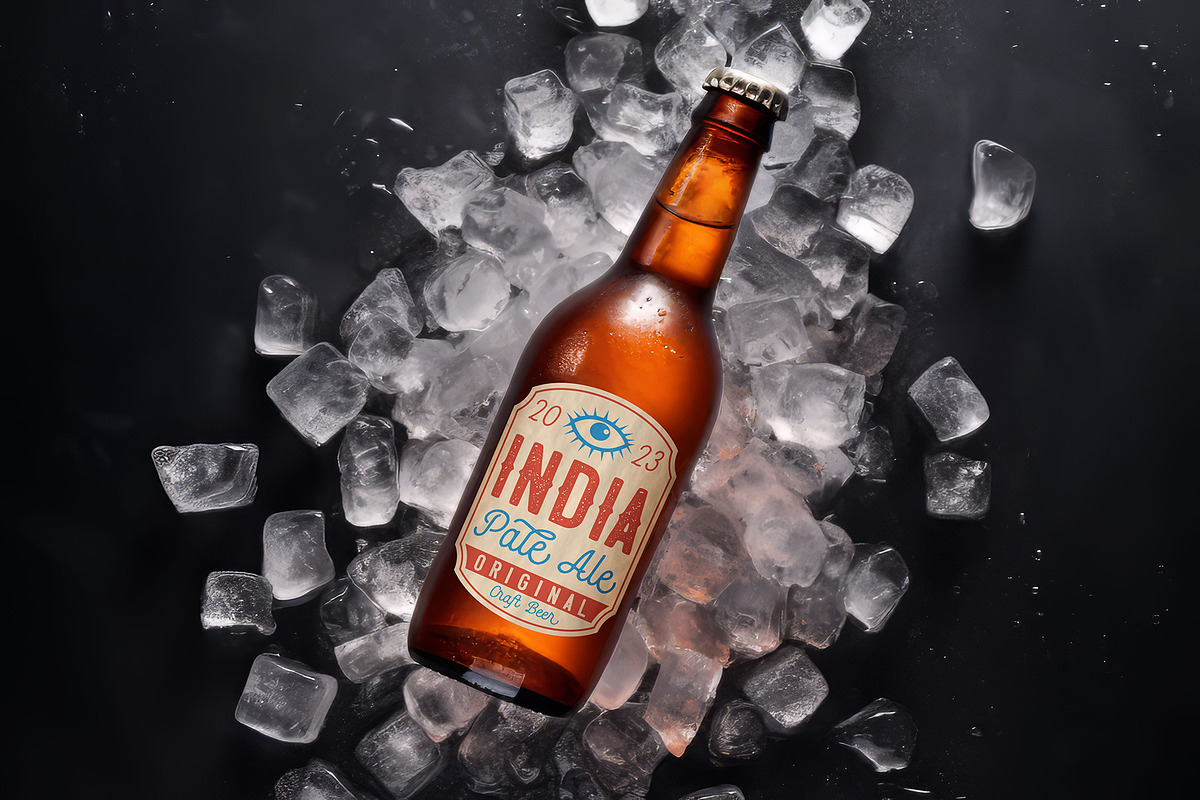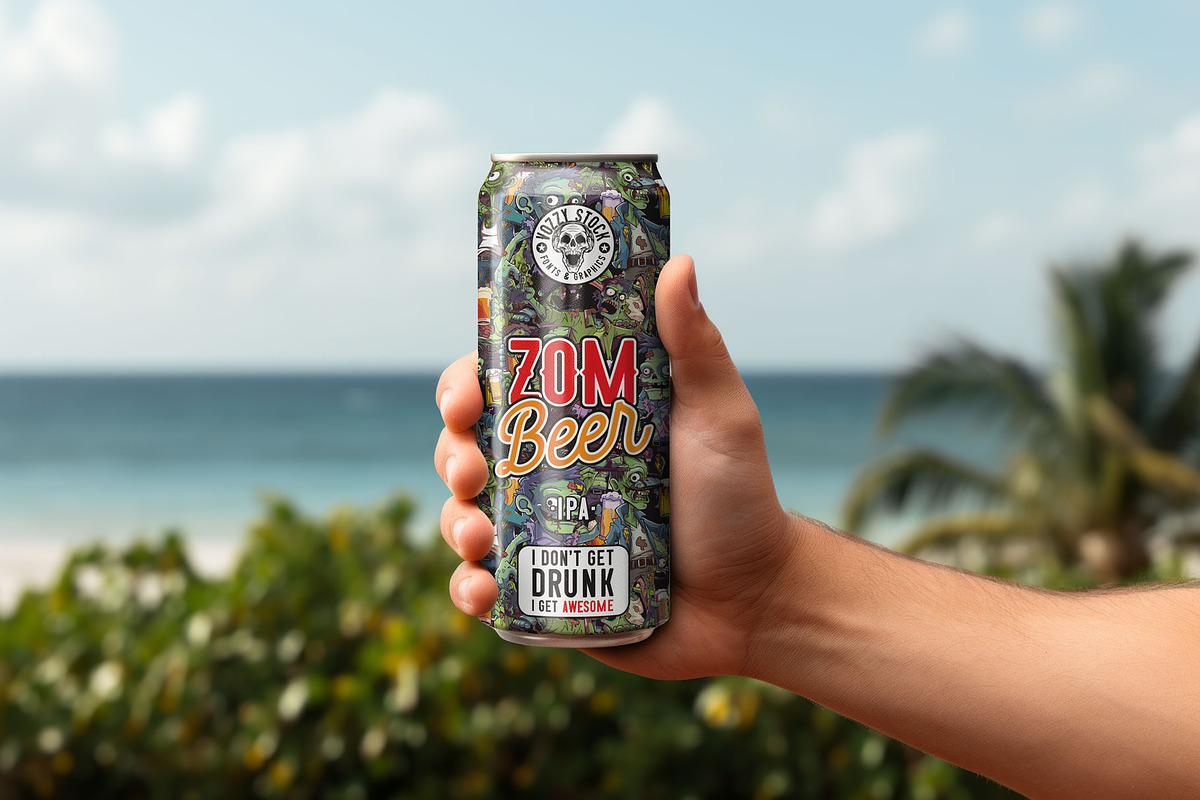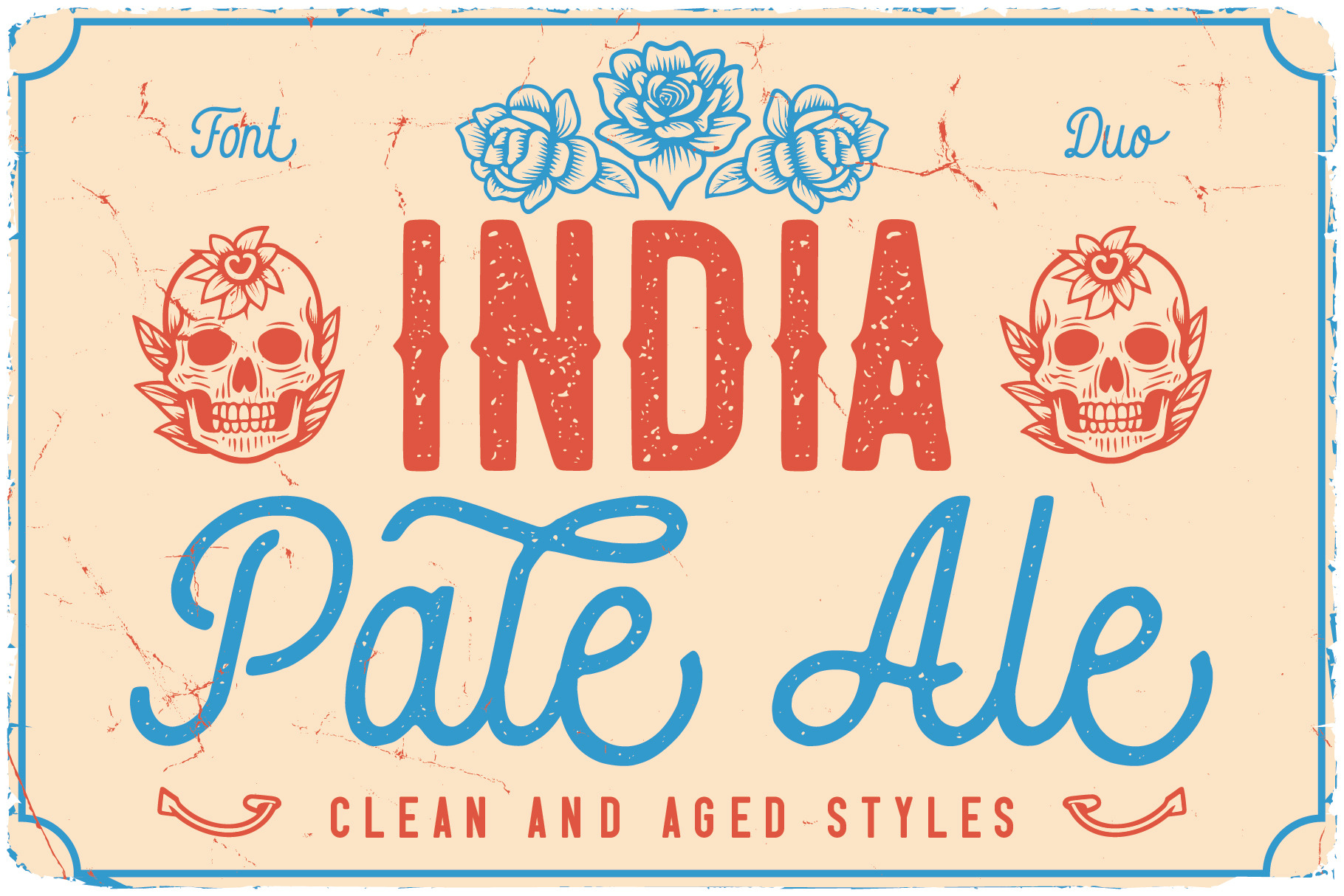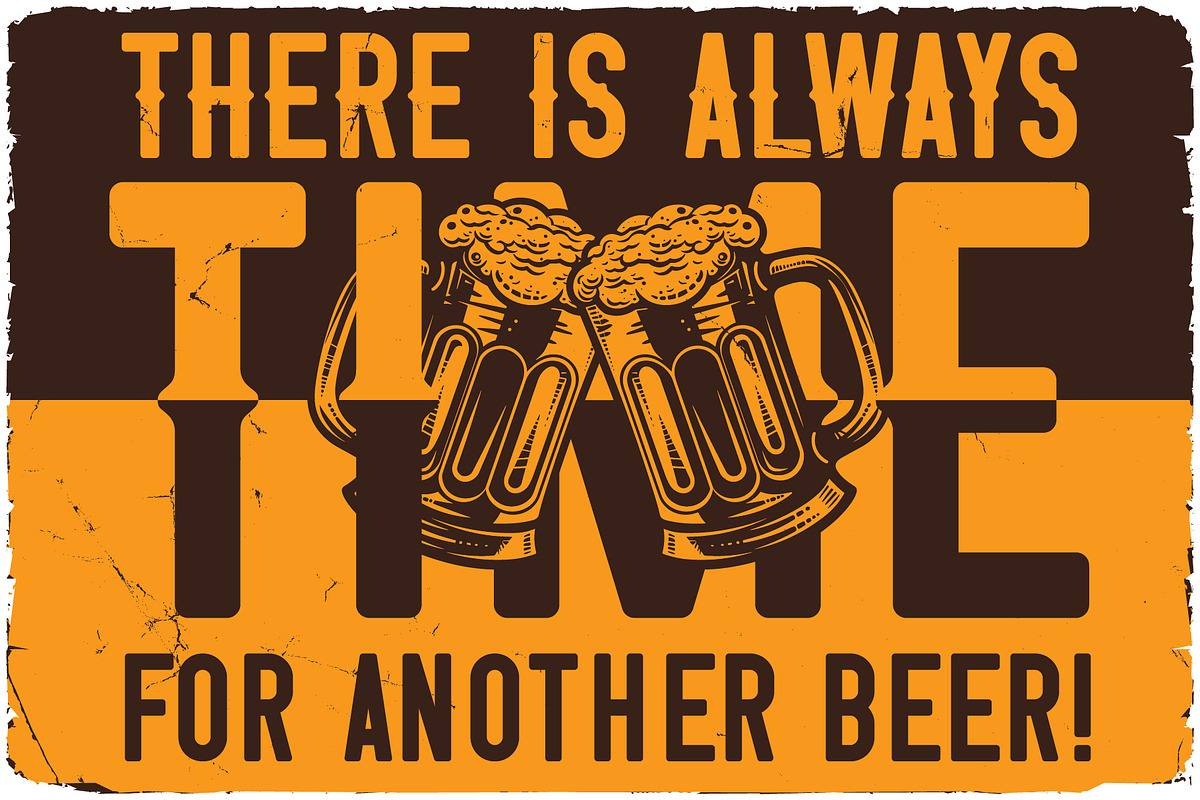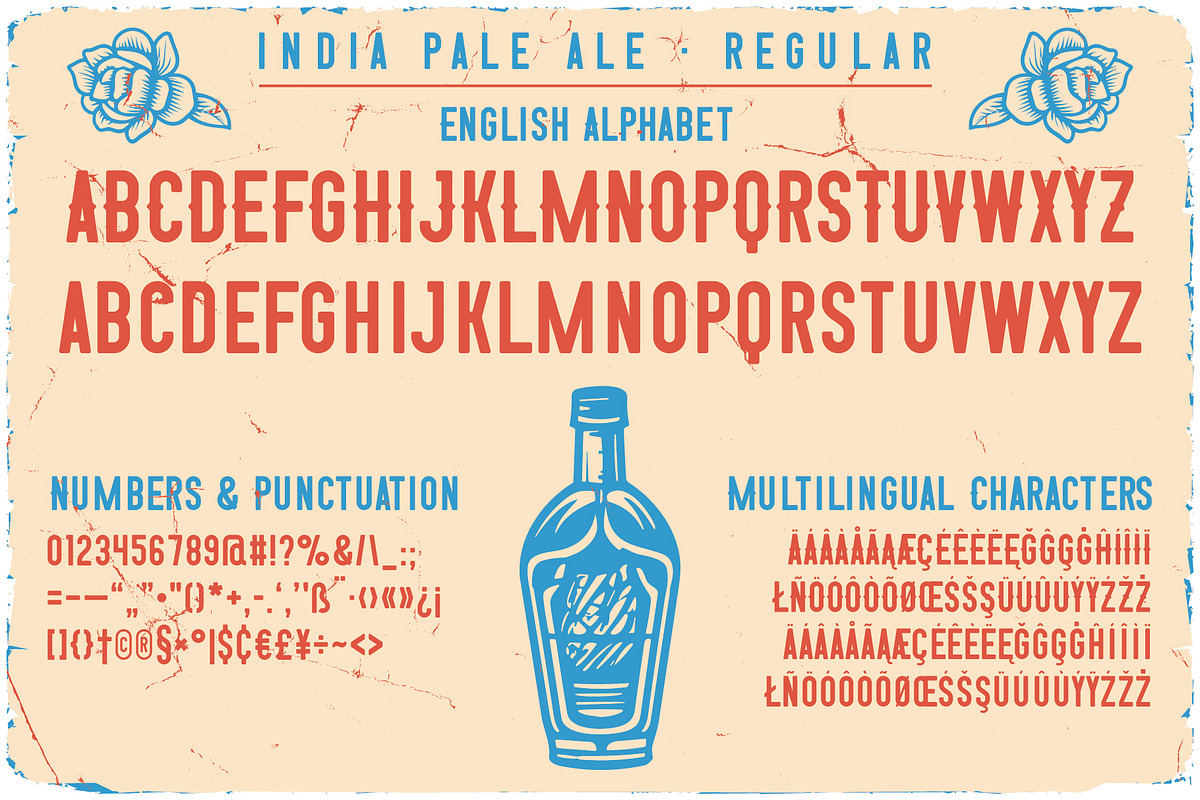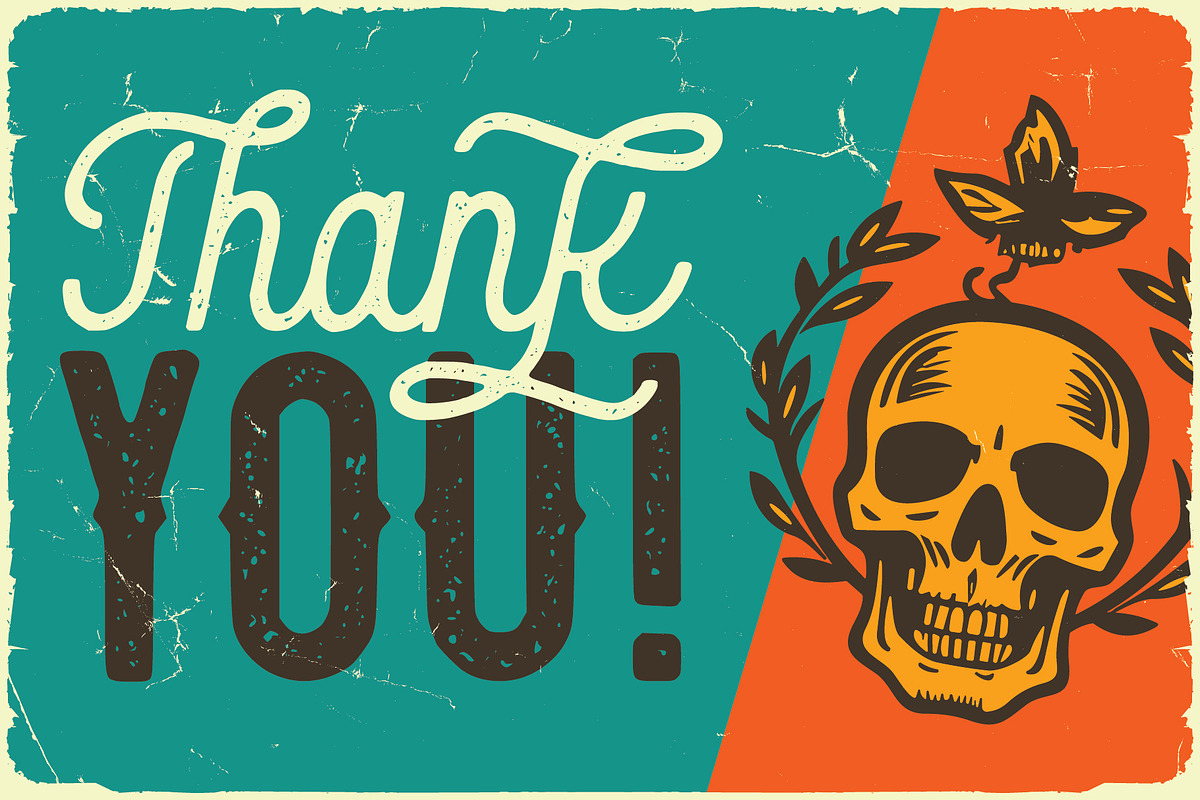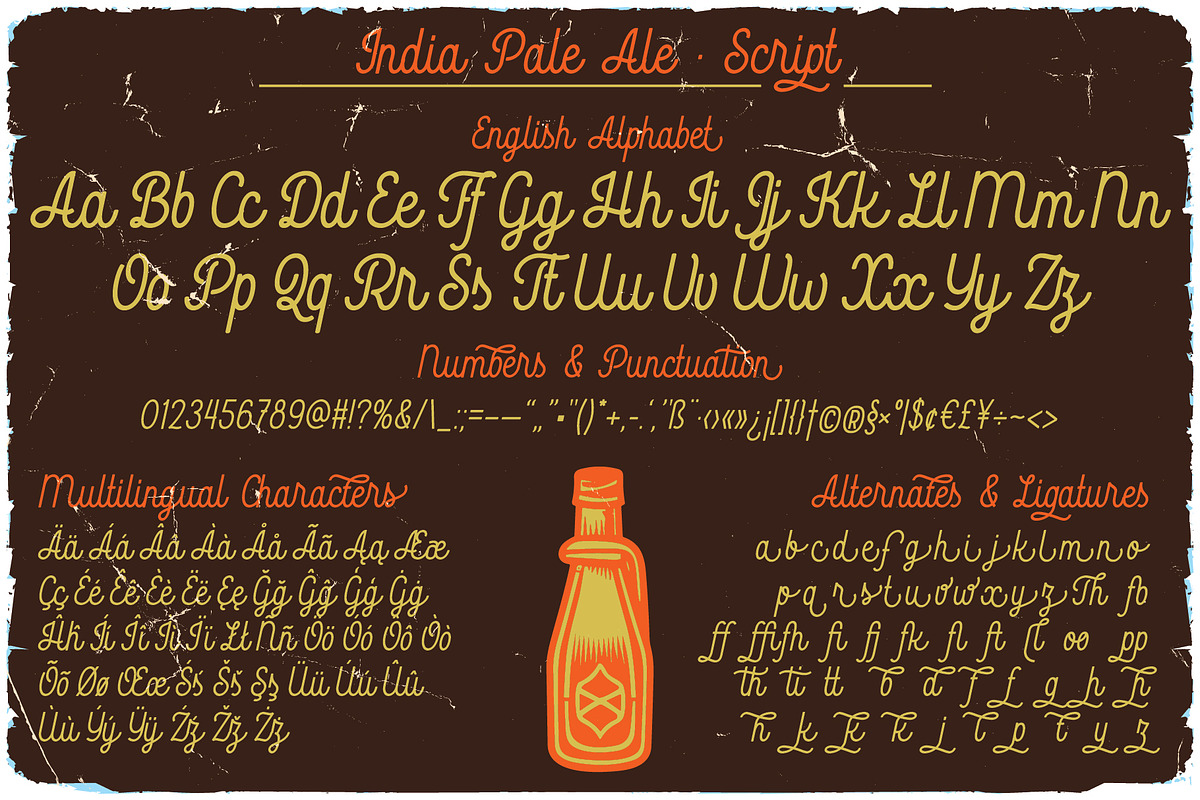
India Pale Ale font DUO
Introducing vintage label font duo named India Pale Ale. These two fonts has an additional characters and multilungual support (check out all available characters on previews). Also Script font has a lot of stylistic alternates and ligatures. Bold and Script fonts has two styles: Clean and Aged. This font will look good on any vintage styled designs like a poster, T-shirt, label, logo, etc.
- A lot of additional symbols and multilingual support.
- Two different fonts that combine to create a chic vintage look.